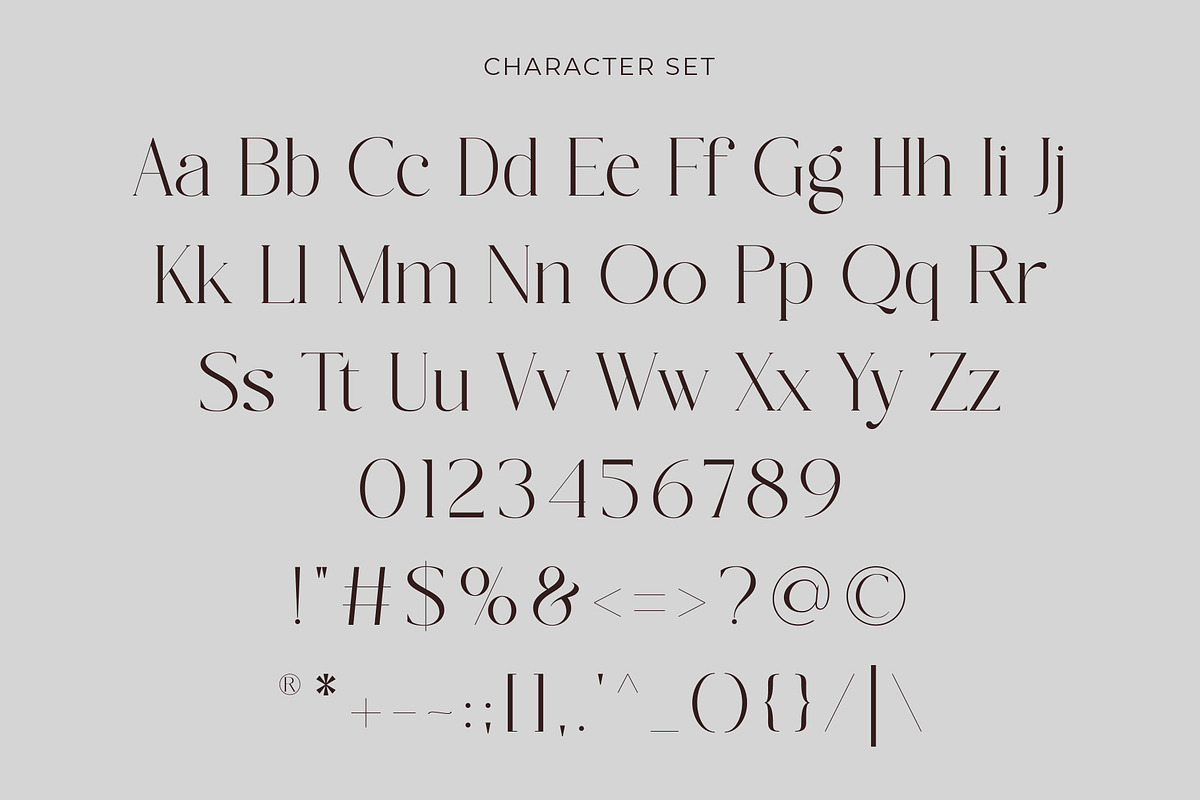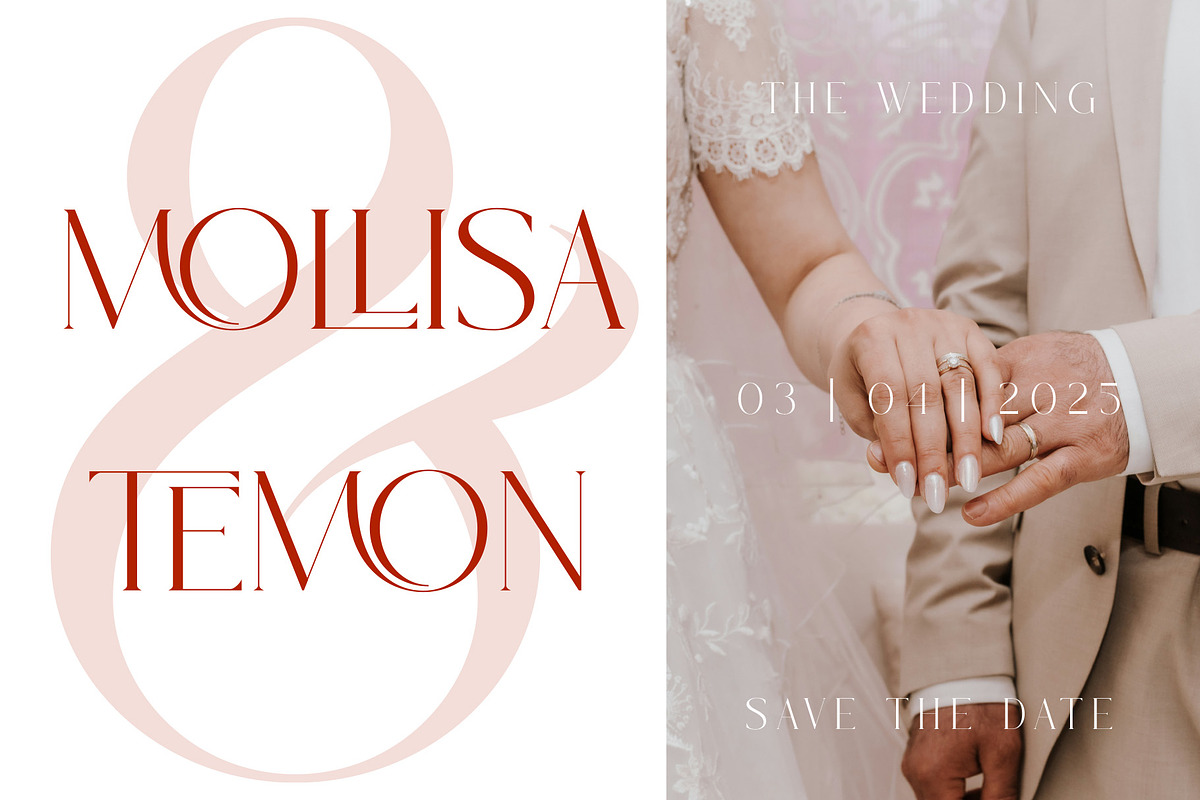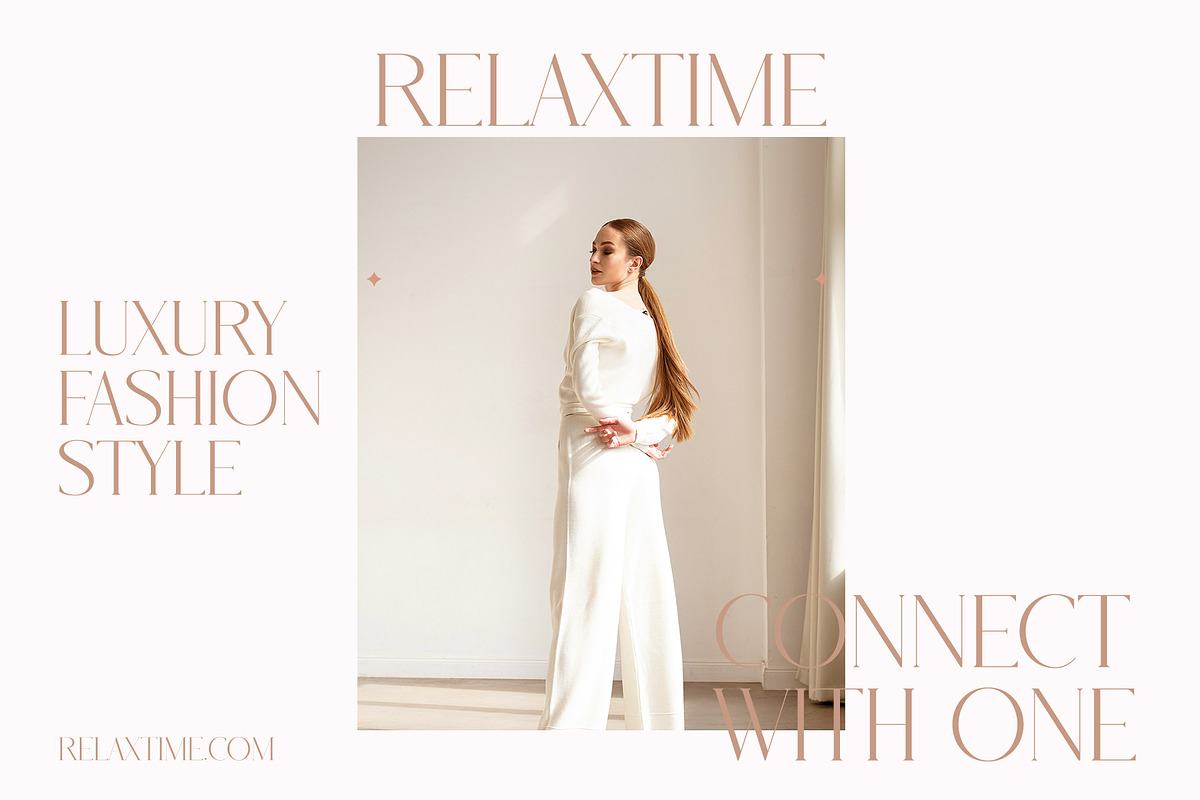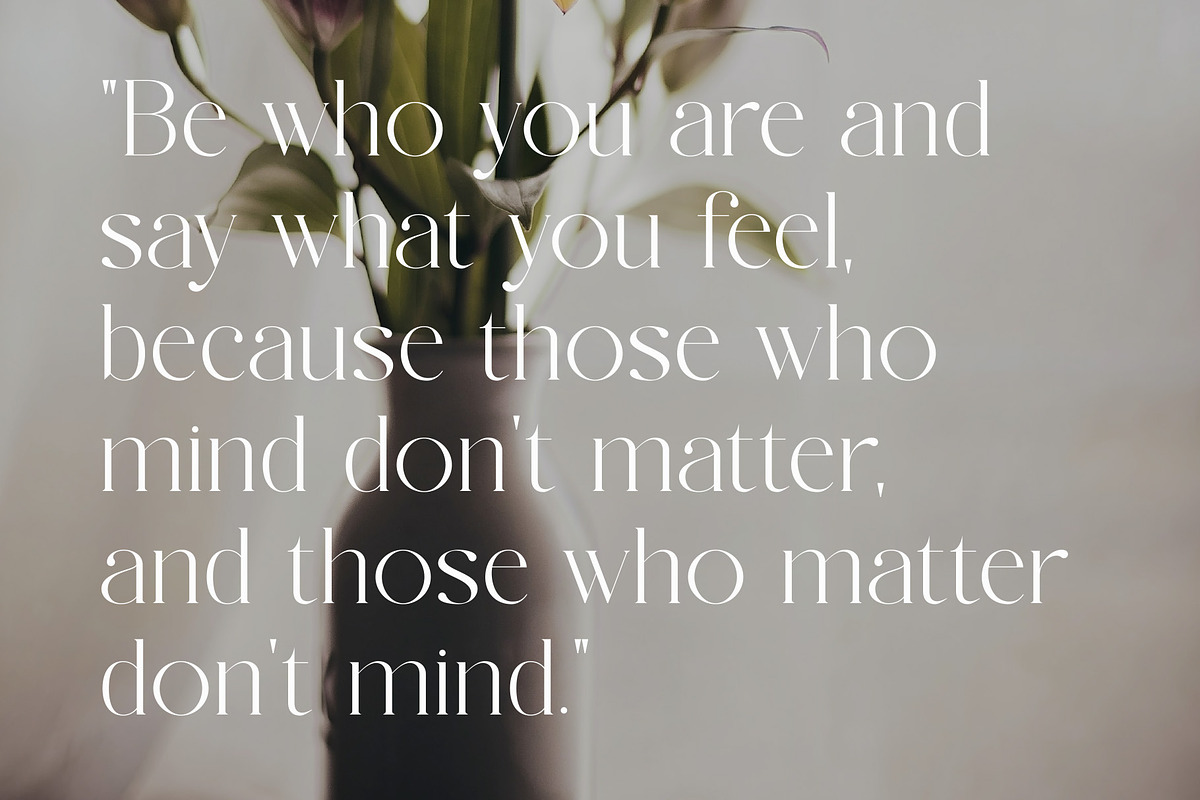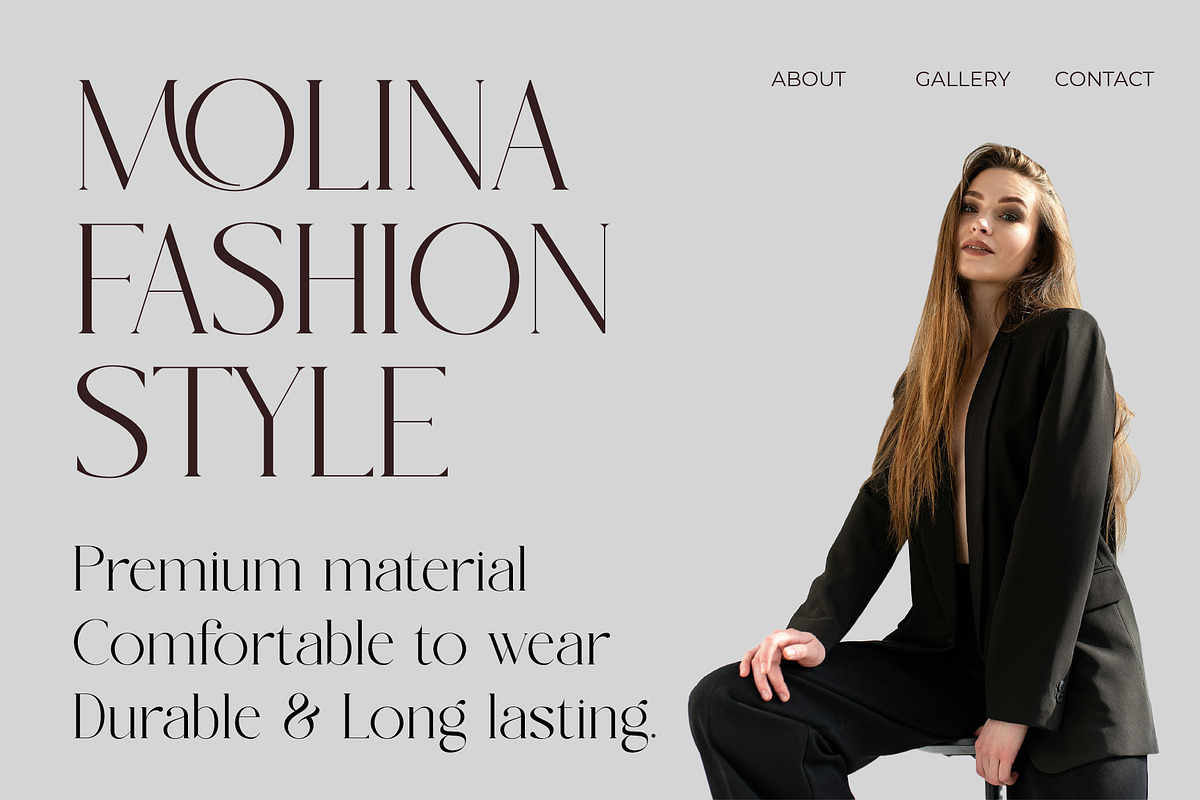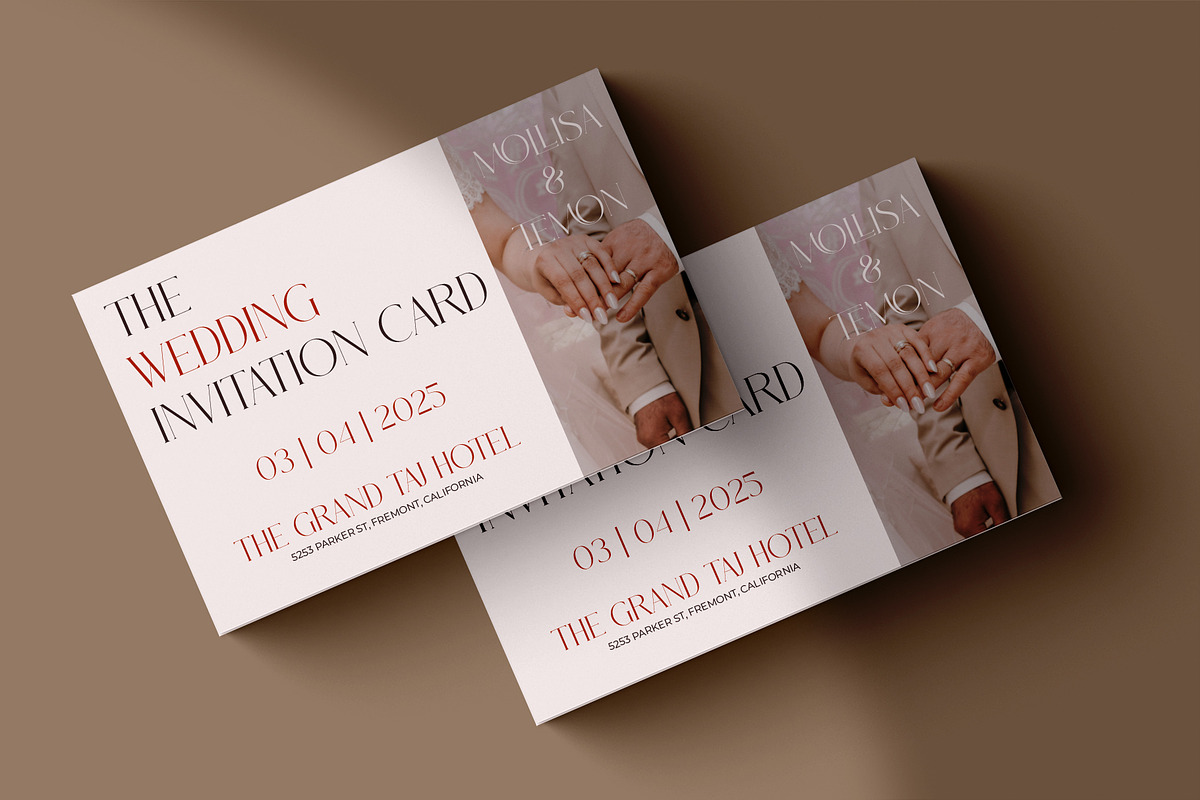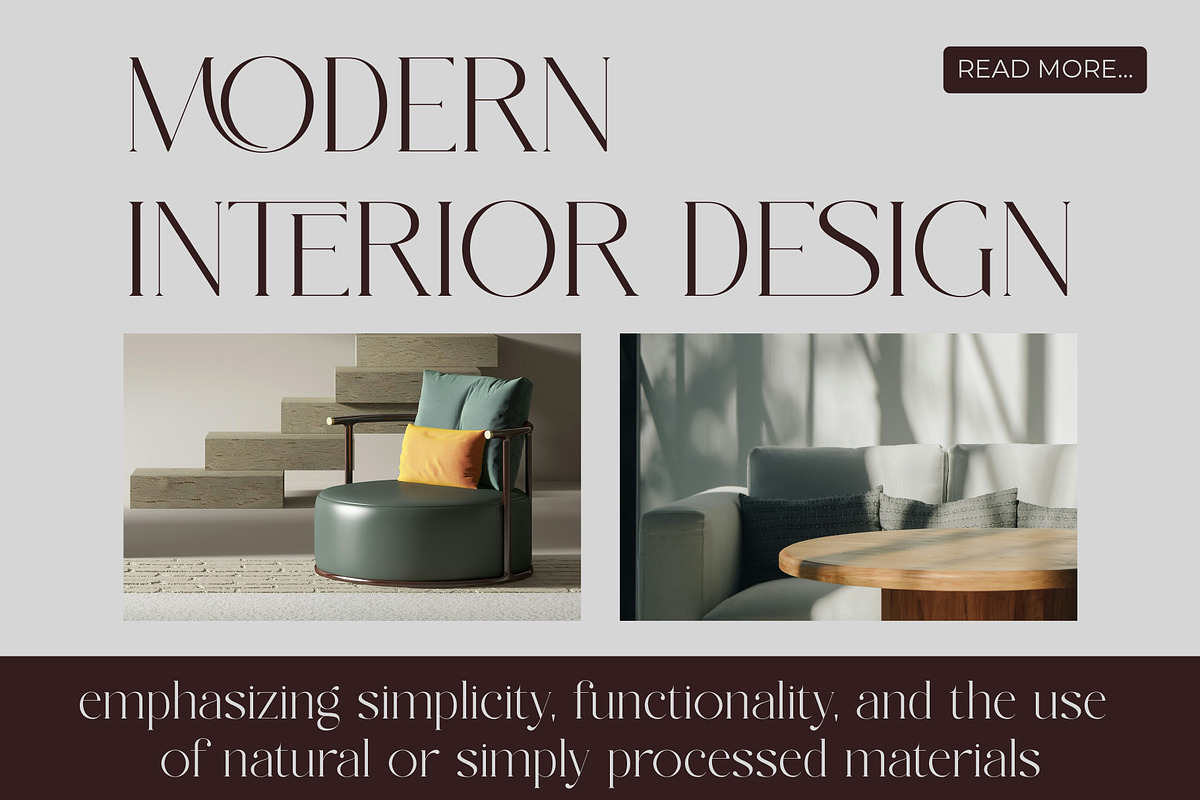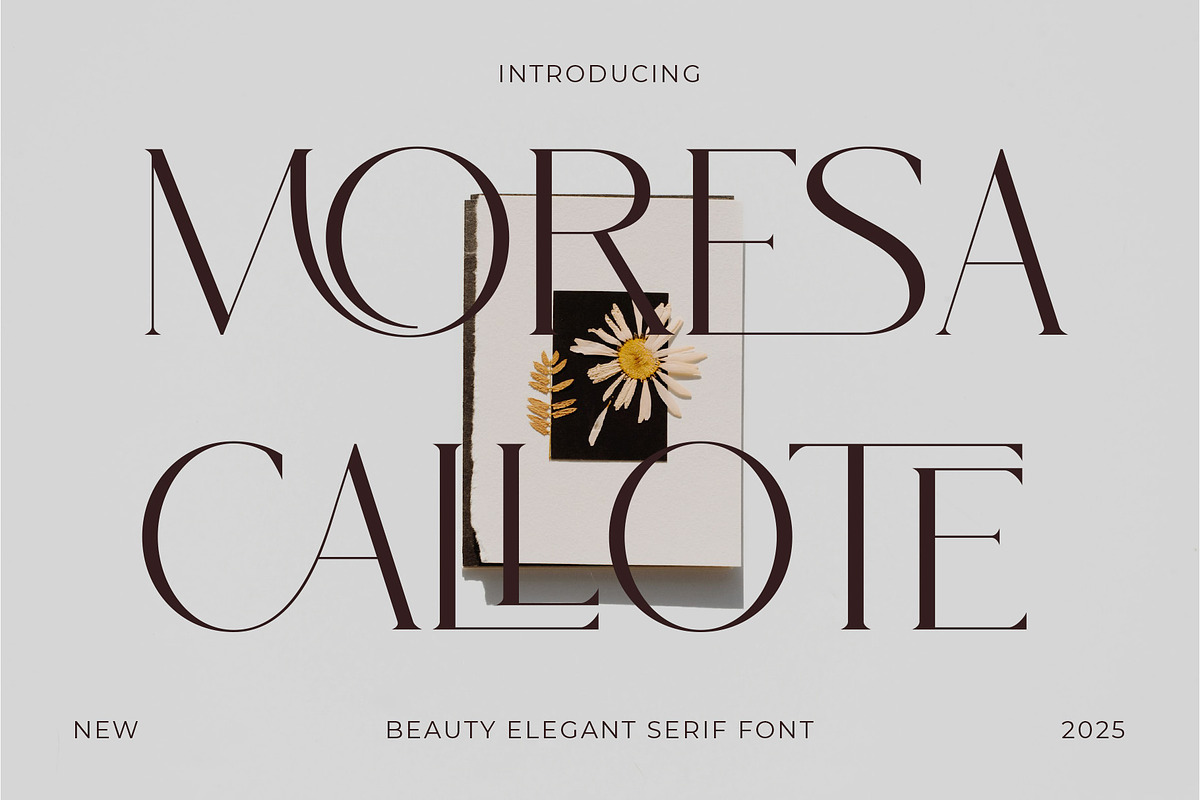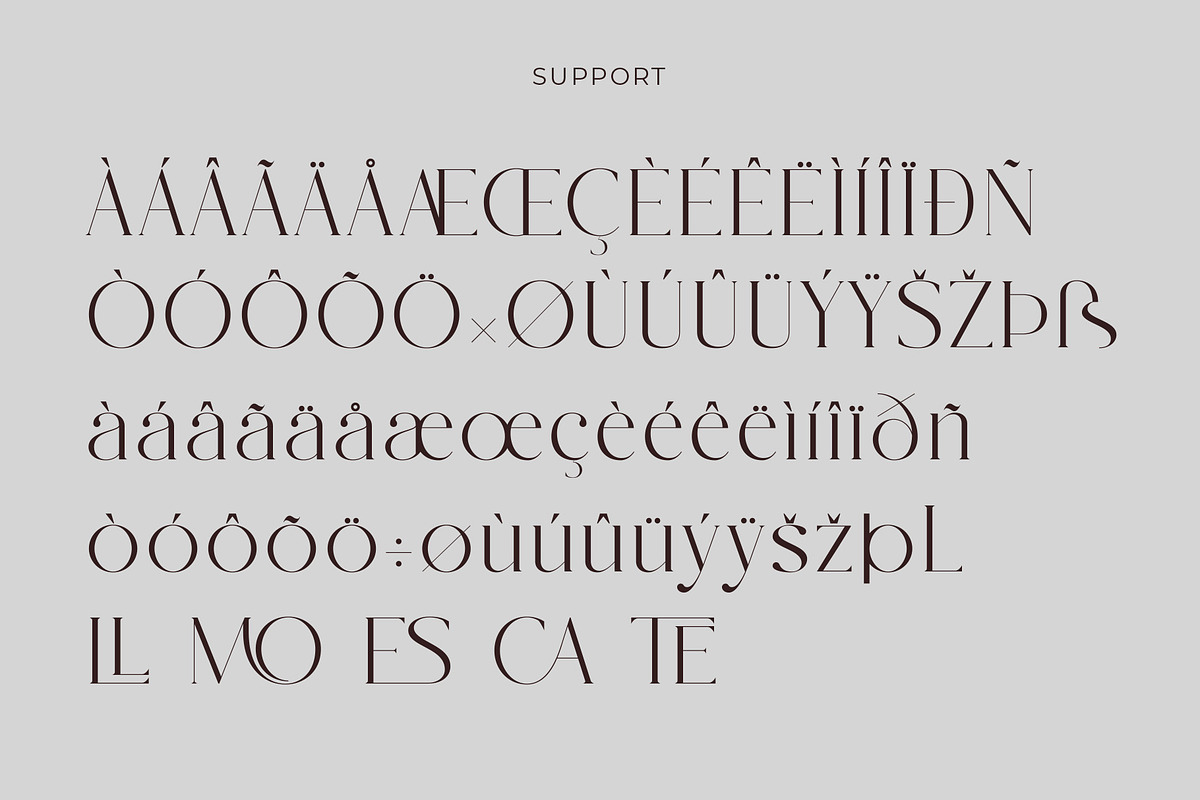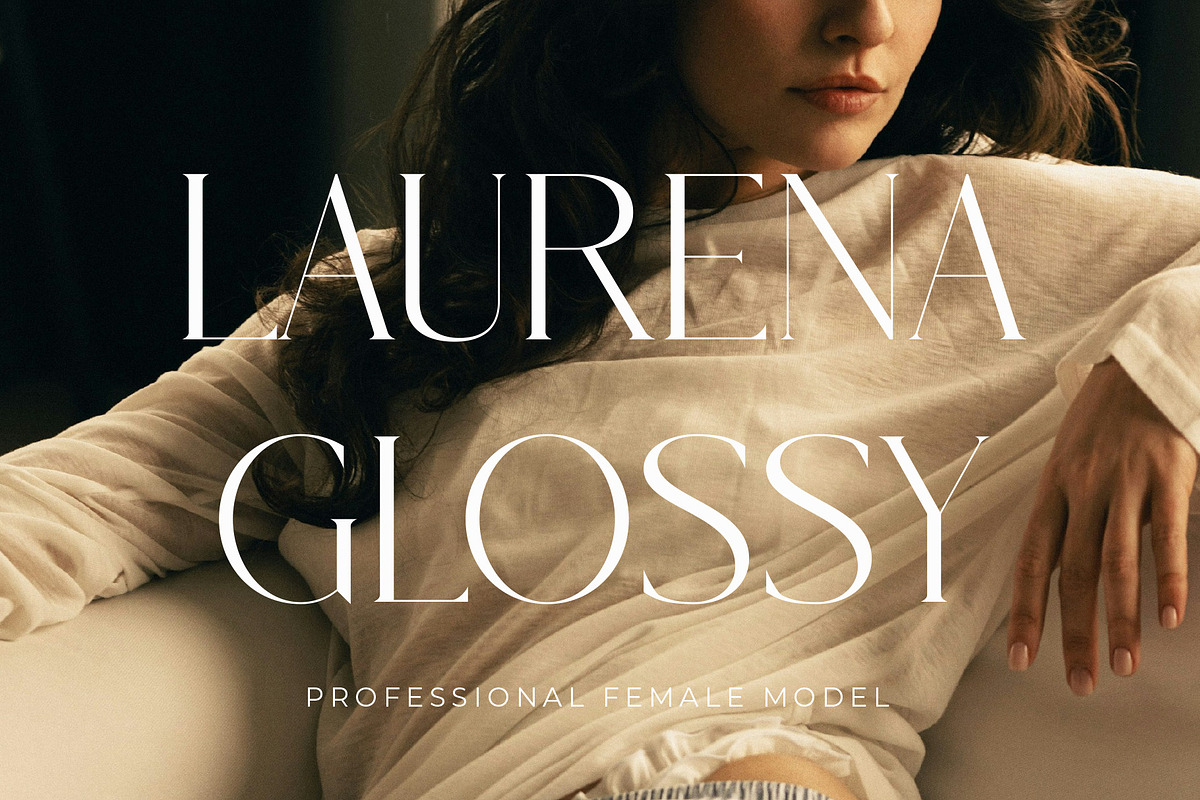
Moresa Callote - Beauty Elegant
Introducing Moresa Callote the elegant, beautiful, and modern Serif. With its modern and minimalist look, Moresa Callote brings a luxurious, classy, and clean style to your projects such as websites, modern logos, brand identities, social media quotes, wedding stationery, magazines, and more!
Moresa Callote features unique and classy capital letters A to Z and also comes with unique alternates and ligatures making Moresa Callote a beautiful font that can be customized for various projects and jobs you want.
Moresa Callote is perfect for: logos, brands, wedding invitations, business cards, greeting cards, posters, magazines, social media, agenda prints, and websites.